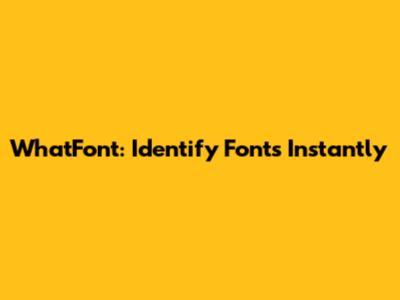
WhatFont: Identify Fonts Instantly
Ever stumbled upon a website and thought, "Wow, I love that font! I wonder what it is?" Guys, we've all been there. You see a cool typeface, a stylish header, or a perfectly readable body text, and a burning desire to know its name ignites within you. Well, fret no more, because the WhatFont tool from MyFonts is here to be your font-finding superhero! This nifty little browser extension is an absolute game-changer for designers, bloggers, students, or anyone with a keen eye for typography. It's super easy to use and, best of all, it helps you identify fonts on any webpage you visit. Seriously, it's like having a secret weapon in your design arsenal. Whether you're trying to replicate a look, find a similar free alternative, or just satisfy your typographic curiosity, WhatFont has got your back. It works by analyzing the CSS of a webpage and pulling out the font information, presenting it to you in a clean, simple interface. No more endless scrolling through font lists or trying to match fonts by eye – WhatFont does the heavy lifting for you. It’s a must-have for anyone who appreciates good design and wants to learn more about the building blocks of visual communication. We’ll dive deep into how this amazing tool works, its benefits, and how you can start using it to elevate your own design projects or simply to satisfy your font obsessions.
How Does WhatFont Actually Work?
So, you're probably wondering, how does this magical tool actually sniff out font names from a webpage? It's actually pretty clever and boils down to how websites are built. When web developers create a site, they use something called Cascading Style Sheets, or CSS, to dictate how everything looks – including the fonts. The WhatFont extension is designed to read these CSS files. When you click on the WhatFont icon while you're on a webpage, it scans the page's code. It looks for specific CSS properties that define the font family, size, weight, and even color being used for different elements on the page. It’s like a detective meticulously going through clues! It doesn't just give you one font name; it often identifies all the fonts used on the page, from the main headings down to the smallest bits of text. The beauty of it is that it presents this information in a user-friendly way. You don't need to be a coding wizard to understand it. Typically, a small pop-up or overlay will appear, listing the font names, their respective foundries (the company that created the font), and sometimes even direct links to where you can learn more or purchase the font. This immediate font identification is what makes WhatFont so incredibly powerful. It bypasses the complex technicalities of web development and gives you the juicy typographic details you’re after, instantly. It's this seamless integration and straightforward presentation of data that makes WhatFont an indispensable tool for so many people working with or appreciating web design.
Why You'll Love Using WhatFont
Alright, guys, let's talk about why this tool is such a big deal. The benefits of using WhatFont are pretty darn compelling, whether you're a seasoned pro or just dipping your toes into the design world. First off, instant font recognition is a massive time-saver. Imagine you're working on a mood board or a client project, and you see a font that perfectly captures the vibe you're going for. Instead of spending hours searching or guessing, WhatFont gives you the name in seconds. This allows you to quickly find the font, download it (if it's free!), or purchase it, keeping your workflow smooth and efficient. Secondly, it’s an incredible learning tool for typography. By seeing what fonts are used on well-designed websites, you start to develop a better understanding of typography trends, font pairings, and what makes certain fonts work well in different contexts. It’s like having a visual textbook of fonts in action! For designers, this can spark inspiration and help you expand your own font library and knowledge base. For non-designers, it helps you appreciate the craft and make more informed choices when selecting fonts for your own projects, even if it’s just for a simple document or presentation. Furthermore, WhatFont helps you find alternatives. Sometimes, the font you love might be expensive or not readily available. WhatFont not only tells you the name but often provides information about the font's foundry, which can lead you to discover other fonts by the same designer or from the same type house that might be similar or more budget-friendly. This flexibility is gold! Finally, it’s incredibly easy to use. There’s no complicated setup or steep learning curve. You install it, click the icon, and voilà – font information is at your fingertips. This accessibility makes it a valuable tool for everyone, regardless of their technical background. The sheer convenience and the wealth of information it provides make WhatFont a truly indispensable asset for anyone interested in the visual aspects of the web.
Getting Started with WhatFont
Tips and Tricks for Mastering WhatFont
Now that you've got WhatFont installed, let's unlock its full potential, shall we? While it's super intuitive, there are a few little tricks that can make your font-finding experience even smoother and more insightful. First off, understand the context. Sometimes, a website might use different fonts for headings, body text, captions, and buttons. When you activate WhatFont, try clicking on various text elements to see the full range of fonts being used. This helps you appreciate the overall typographic hierarchy and intentionality of the design. Don't just check the main headline; explore the smaller details too! Secondly, look beyond the name. WhatFont often provides the font family and the foundry. This is crucial! Knowing the foundry (like Adobe, Google Fonts, Monotype, etc.) can help you search for similar fonts or explore other works by the same type designer. It opens up a whole new world of typographic discovery. If WhatFont tells you a font is from Google Fonts, you know you've got a treasure trove of potentially free alternatives right there. Explore font pairings. Pay attention to which fonts are used together. Does a serif font pair nicely with a sans-serif for contrast? WhatFont helps you see these successful combinations in action, which is invaluable for your own design work. You can learn so much just by observing how talented designers combine different typefaces. Also, if you’re looking for a specific font but WhatFont doesn’t give you an exact match (sometimes fonts are modified or custom), use the information it does provide to search for similar-looking fonts. Websites like Font Squirrel or Google Fonts have excellent search filters that can help you find fonts based on characteristics like classification (serif, sans-serif, script) or x-height. Finally, keep the extension updated. Like any software, developers occasionally release updates to improve performance, fix bugs, or add new features. Ensure your WhatFont extension is always up-to-date to get the best experience possible. By applying these little tips, you’ll go from simply identifying fonts to truly understanding and utilizing typographic information like a pro. It’s all about observation and leveraging the data WhatFont provides to its fullest extent.
WhatFont vs. Other Font Identifier Tools
Alright, let’s be real, guys. WhatFont isn't the only font identifier out there. There are other tools you can use, but WhatFont, especially the one from MyFonts, really shines for a few key reasons. One of the biggest advantages is its simplicity and speed. Many other tools might require you to upload a screenshot or perform more complex analysis. WhatFont, being a browser extension, works directly on the live webpage. You just click, hover, and boom – you have the font info. This makes it incredibly efficient for quick checks. Another major plus is its direct integration with MyFonts. If you find a font you love and want to learn more or purchase it, WhatFont often provides direct links to the MyFonts catalog. This streamlines the process significantly, especially if you're already familiar with or prefer using MyFonts for font acquisition. Some other tools might link to various marketplaces or might not provide purchase links at all. Accuracy is also a strong suit. Because it analyzes the live CSS, WhatFont is generally very accurate in identifying the primary fonts being used. While some complex sites might use custom fonts or dynamically loaded typefaces that can sometimes be tricky for any tool, WhatFont handles the vast majority of standard web fonts with impressive precision. Other tools might rely on image analysis, which can sometimes lead to misidentification, especially if the image quality is poor or the font is heavily stylized. Furthermore, it’s free and unobtrusive. The browser extension is free to use and doesn't bog down your browser with excessive resource usage. It simply sits there, ready when you need it. While there are premium font identifier services or apps, WhatFont offers excellent functionality for zero cost, making it accessible to everyone. It strikes a fantastic balance between ease of use, accuracy, and functionality, making it the go-to choice for many web surfers and designers alike. It’s the perfect blend of power and simplicity.
Beyond Identification: The Power of Font Knowledge
So, we've established that WhatFont is awesome for identifying fonts, but its real value, guys, lies in what you do with that knowledge. Understanding typography goes way beyond just knowing font names. It’s about developing a visual vocabulary. When you can identify fonts, you start to notice patterns, styles, and historical influences. You begin to see how different typefaces evoke different emotions or convey different messages. For instance, a bold, geometric sans-serif might feel modern and clean, while an ornate serif might feel traditional and luxurious. This deeper understanding allows you to make much more informed decisions in your own projects. For designers, this is gold. Knowing the characteristics of different fonts helps you select typefaces that perfectly align with your brand's personality and your client's message. It elevates your designs from simply looking good to communicating effectively. You can consciously choose fonts that enhance readability, establish a specific tone, or create a desired aesthetic. It prevents you from just picking a font because it looks “nice” and instead empowers you to pick a font because it’s the right font for the job. For content creators and marketers, understanding fonts means you can create more cohesive and professional-looking materials. Whether it's a blog post, a social media graphic, or a presentation slide, consistent and appropriate typography makes your message more impactful and memorable. It shows attention to detail and a commitment to quality. Even for the casual internet user, it fosters a greater appreciation for design. You start to notice the craft that goes into the websites you visit every day. You might even find yourself exploring typography blogs, attending design webinars, or experimenting with different typefaces in your personal projects. WhatFont is the gateway drug to a world of typographic appreciation and skillful application. It’s the first step towards becoming more visually literate and using type as a powerful tool for communication, not just decoration. So, use WhatFont, learn, explore, and let your newfound typographic knowledge transform your creative output!
Conclusion: Your New Favorite Font Tool
Alright, wrap-up time, guys! If you haven't already gathered, WhatFont by MyFonts is an absolute must-have tool for anyone who interacts with websites and cares even a little bit about how they look. We’ve talked about how it works, its incredible benefits, how simple it is to get started, and even some pro tips to get the most out of it. It’s fast, it’s accurate, it’s easy to use, and it unlocks a world of typographic knowledge right at your fingertips. Whether you're a professional designer looking to streamline your workflow, a blogger wanting to maintain a consistent brand aesthetic, a student learning about visual communication, or just someone who appreciates a beautifully designed webpage, WhatFont is going to make your life significantly easier and more informed. It democratizes access to font information, empowering everyone to understand and utilize the building blocks of web design. So, do yourself a favor, head over to your browser's extension store, search for WhatFont, and install it. You’ll be identifying fonts like a pro in no time, discovering new typefaces, and gaining a deeper appreciation for the art of typography. Trust me, once you start using it, you'll wonder how you ever lived without it. Happy font hunting!